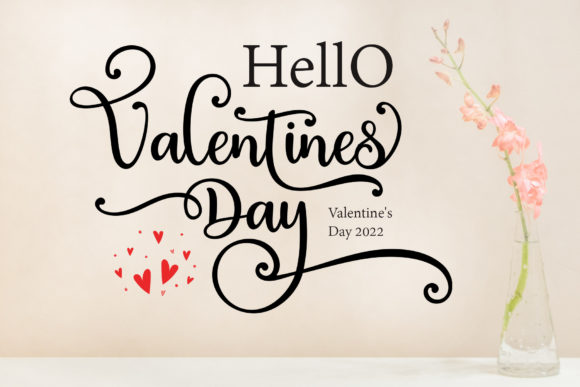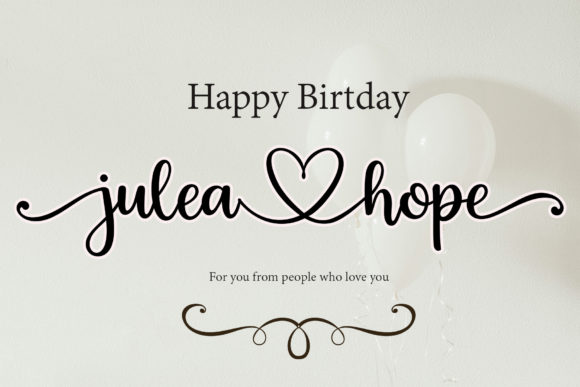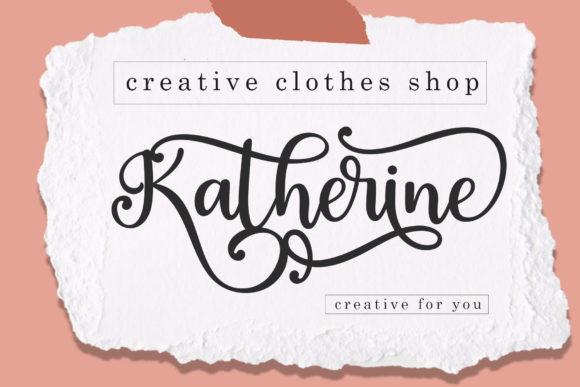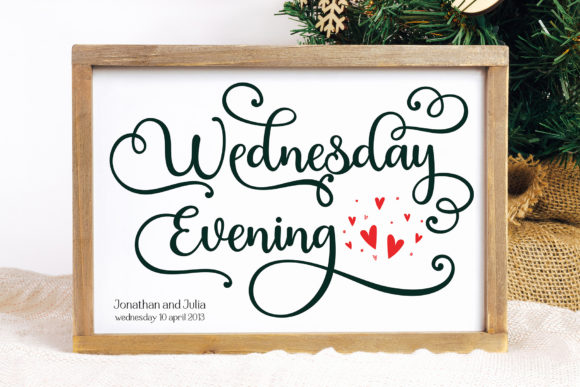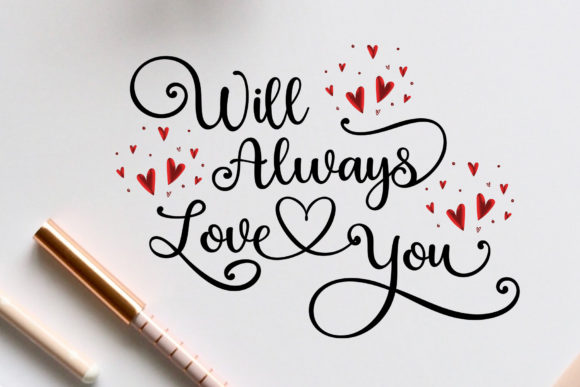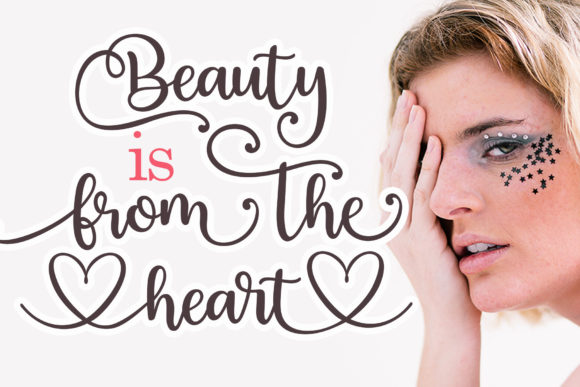
Introduction to Lontings Script Font
Have you ever found yourself stuck on a creative project, desperately searching for that perfect touch to elevate your design from good to great? You know, that elusive spark that makes your work stand out from the crowd? For many designers, that spark is elusive, but what if I told you it’s within reach with the stunning Lontings Script Font?
This beautiful and light handwritten font is a game-changer for any design project, adding a touch of luxury and sophistication that’s sure to impress. With its unique feel and stunning impact, Lontings Script Font is the perfect design resource for creatives looking to take their work to the next level.
Not only is Lontings Script Font a high-quality addition to any design toolkit, but it’s also a free download, making it an accessible resource for designers of all levels. With its transparent background and PUA encoded glyphs, you’ll have endless possibilities for creative expression, from logos to branding materials and beyond.
Key Features of Lontings Script Font
- High-quality, hand-drawn design ideal for creative projects and design resources.
- Features a transparent background, allowing for easy customization and seamless integration with other design elements.
- Designed with a unique, elegant script style that adds a touch of sophistication to any design project.
- High-resolution font, suitable for printing and digital use, with a resolution of 300 DPI.
- Perfect for wedding invitations, greeting cards, and other design projects that require a touch of elegance and creativity.
Honest Review: Lontings Script Font
As a designer, I’m always on the lookout for high-quality design resources that can elevate my creative projects. Recently, I had the chance to experiment with Lontings Script Font, and here’s my honest review.
What works well: ✨ The Lontings Script Font is a beautifully crafted script font that exudes elegance and sophistication. It’s perfect for creating a romantic or vintage vibe in your designs. The font is highly customizable, and its high quality makes it a great addition to any design project.
- Transparent background, making it easy to work with
Limitations: ⚠️ While the Lontings Script Font is a great resource, it’s not without its limitations. The font is not as versatile as some other script fonts on the market, and it may not be the best choice for projects that require a more modern or edgy look.
Overall impression: I was pleasantly surprised by the quality and versatility of Lontings Script Font. While it may not be the perfect font for every project, it’s a great addition to any designer’s toolkit. If you’re looking for a high-quality script font for your creative projects, Lontings Script Font is definitely worth checking out.
Tips for Getting the Most Out of Lontings Script Font
For the best results, pair Lontings Script Font with a simple background to let the font take center stage. Experiment with different font sizes and colors to create a visually appealing design. This font is also great for adding a personal touch to your creative projects.
Lontings Script Font is commonly used for wedding invitations, baby shower invitations, and other special occasion graphics. Its high-quality design and transparent background make it perfect for creating custom designs that stand out from the crowd.